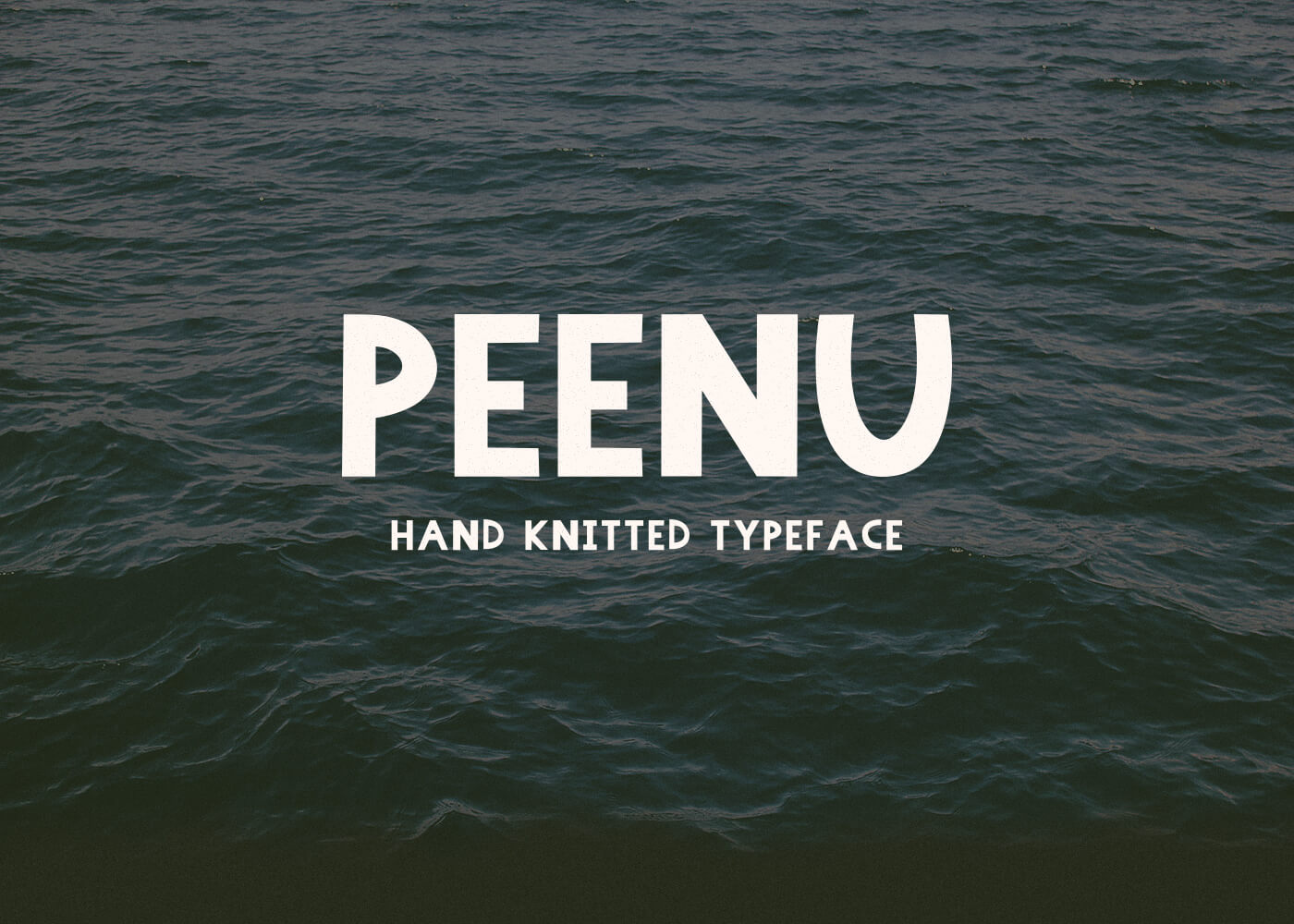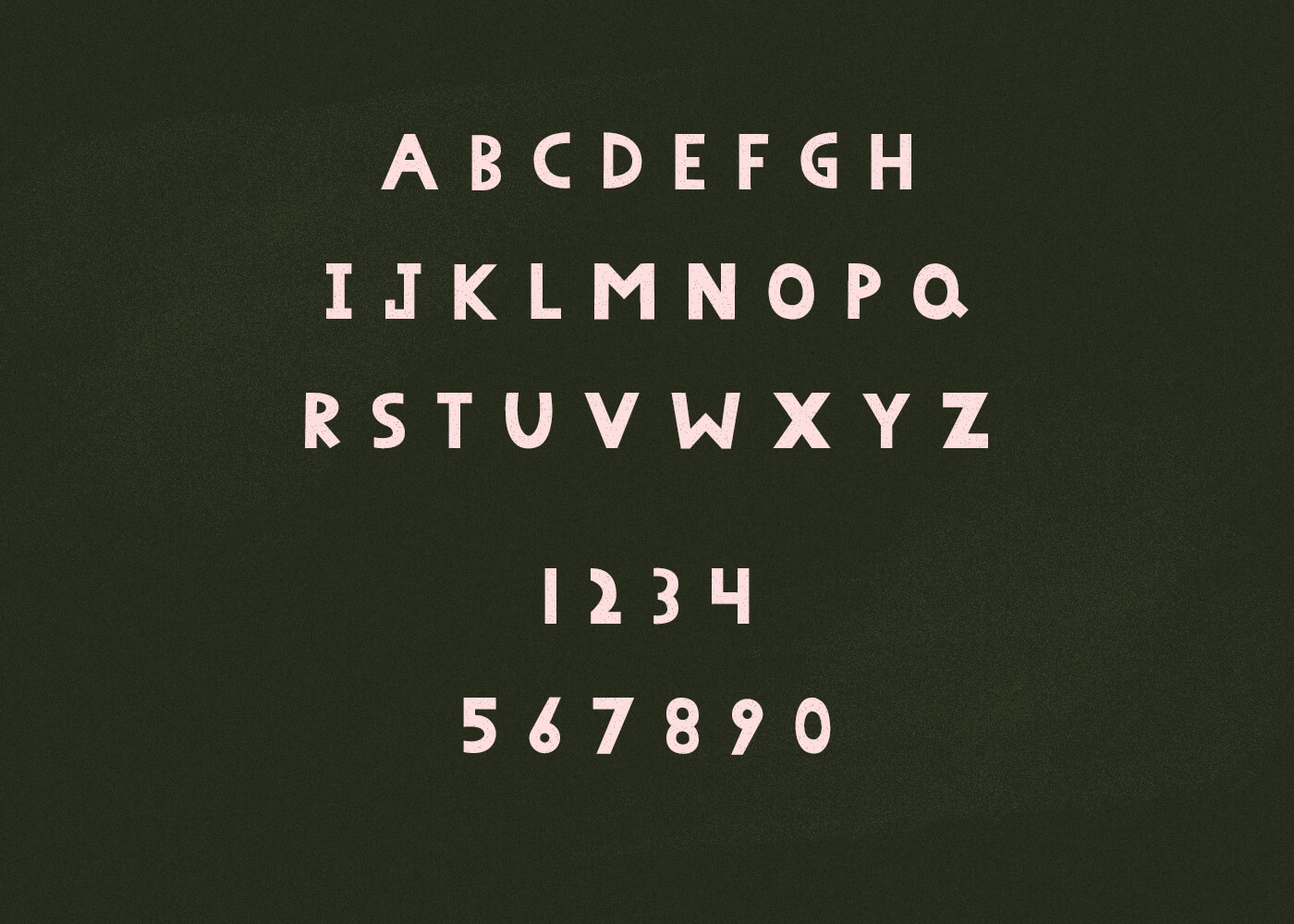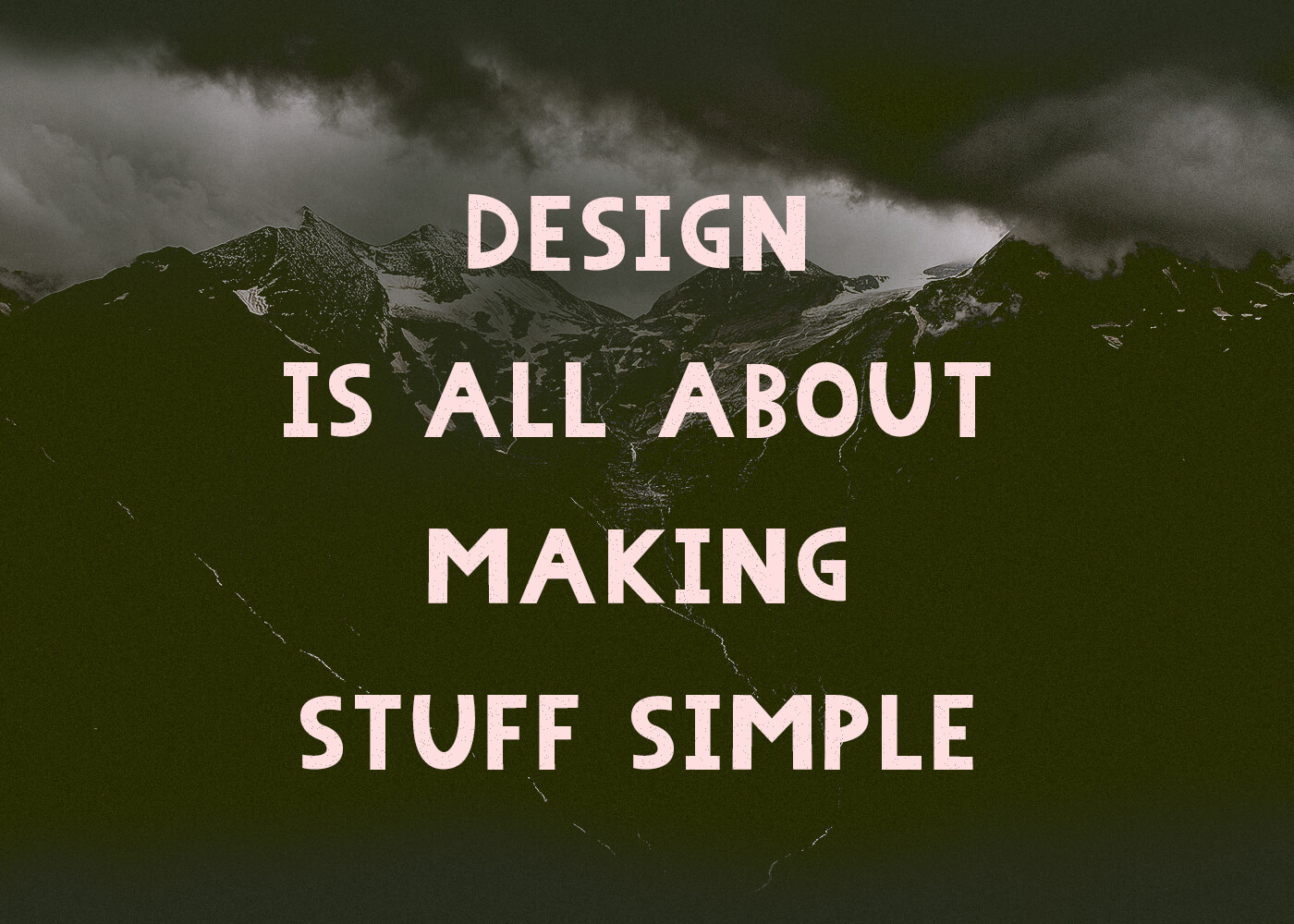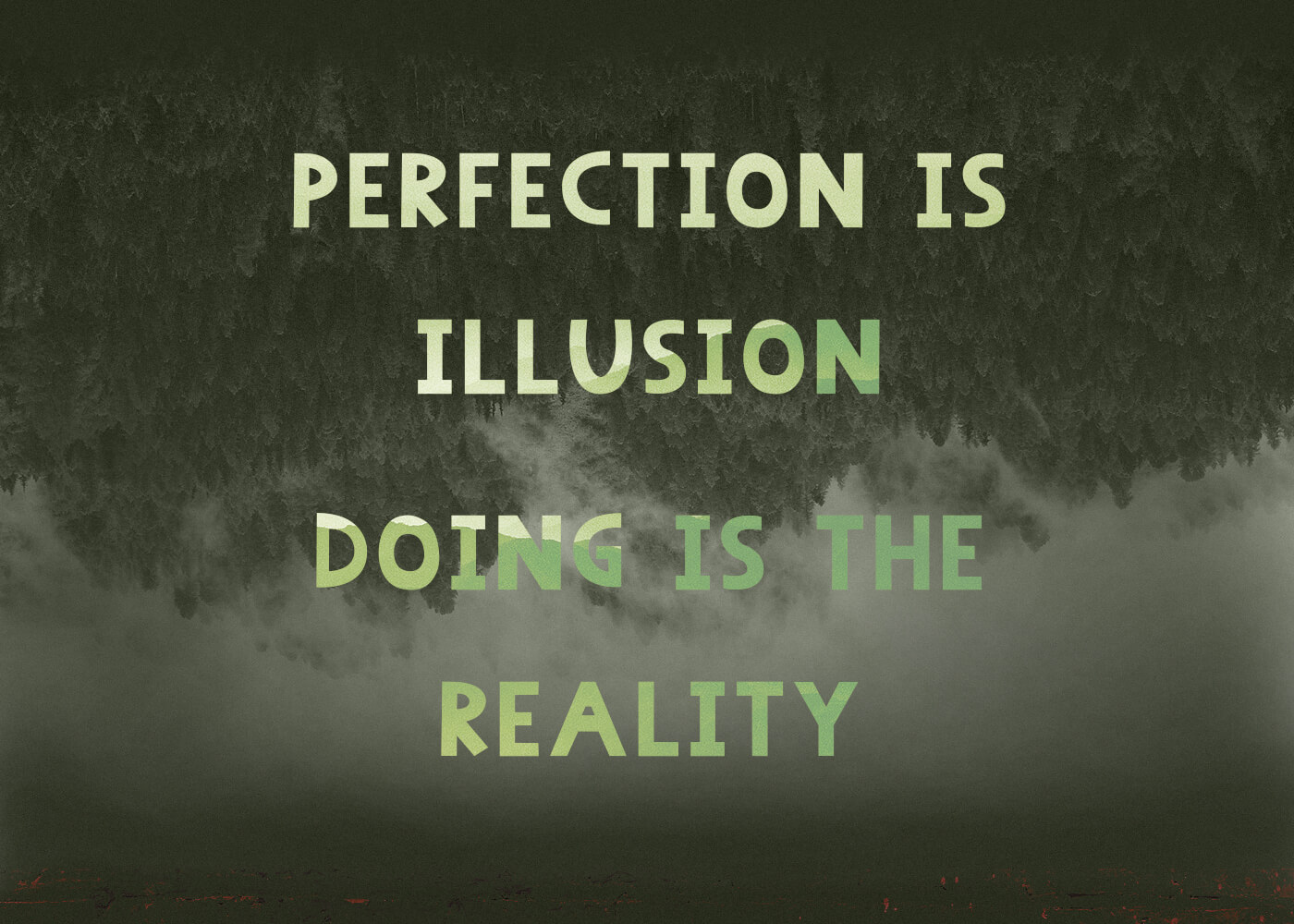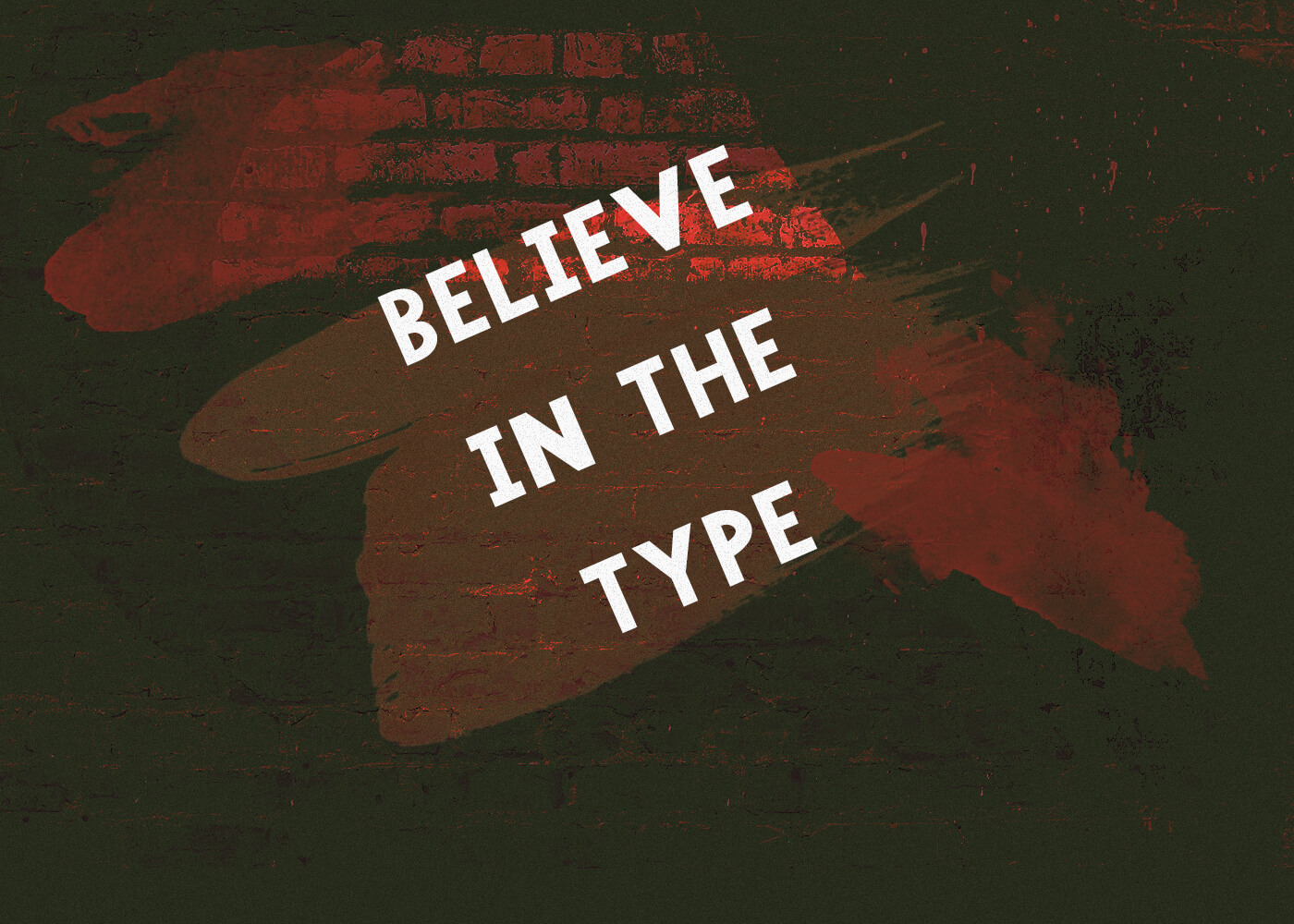
Peenu - Hand Knitted Typeface
A Hand Knitted Typeface inspired by Sharp Paper Cuts - Crafted with ❤ at Webkul HQ. Feel free to use the Peenu Typeface in your next design project without any formal attribution.